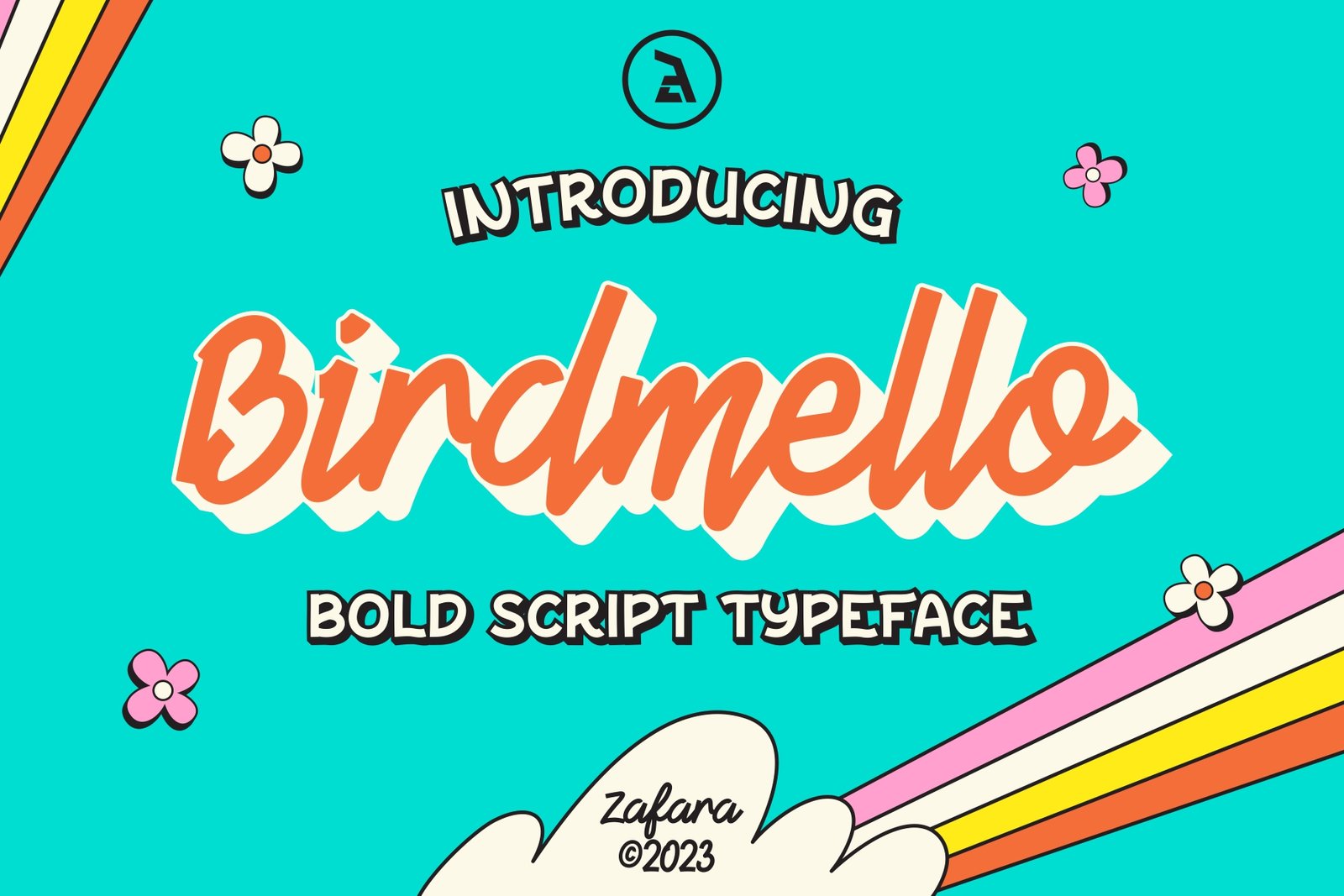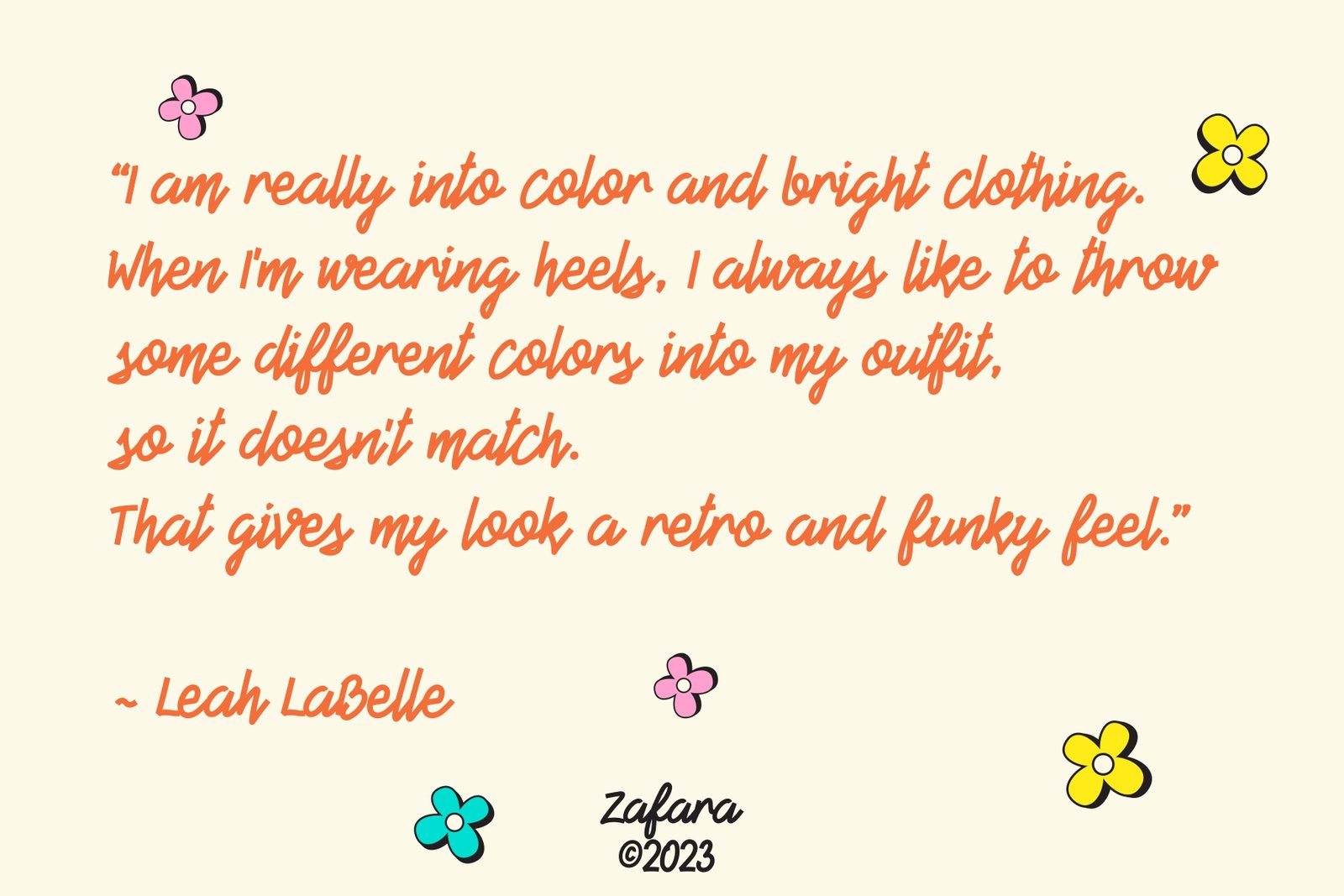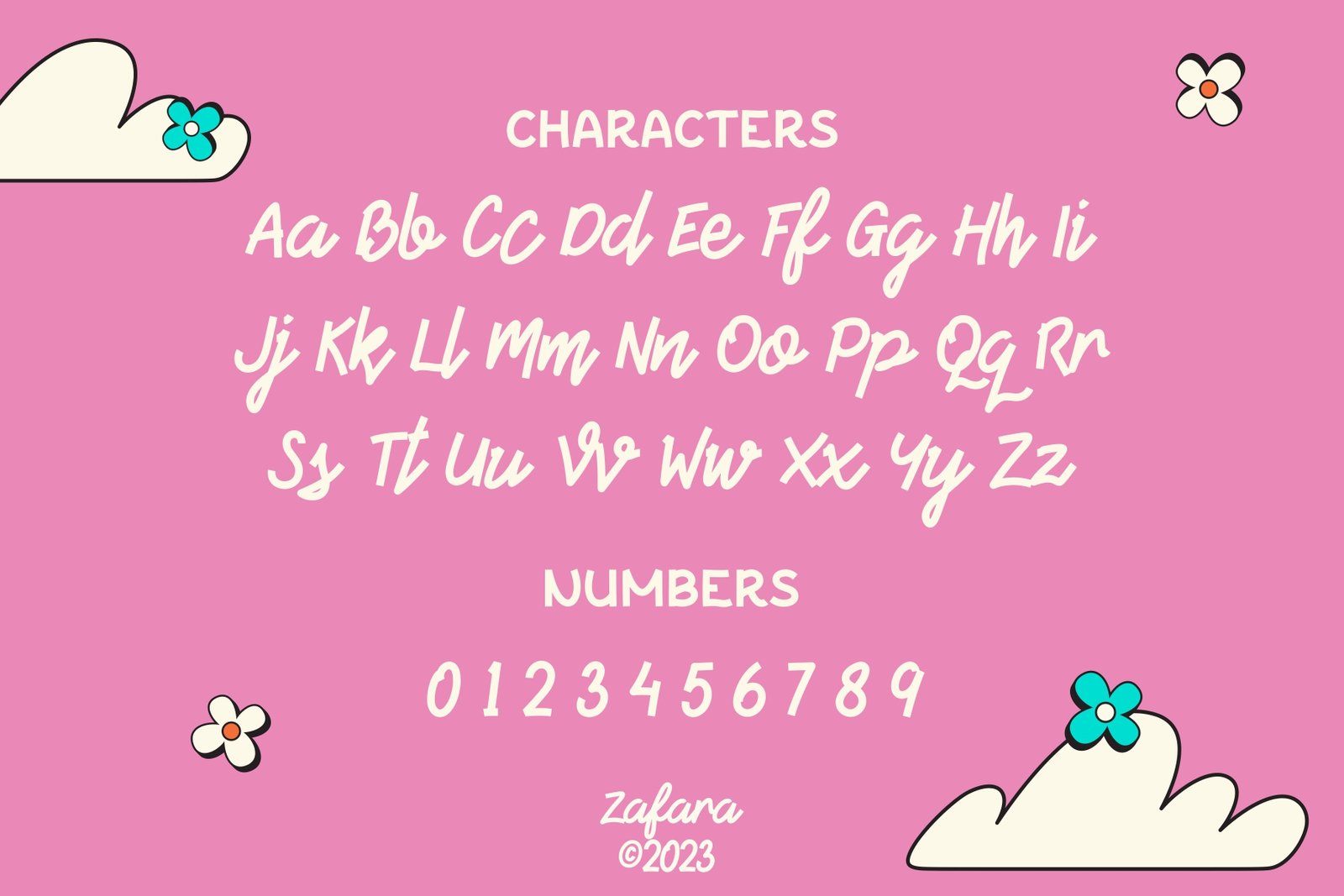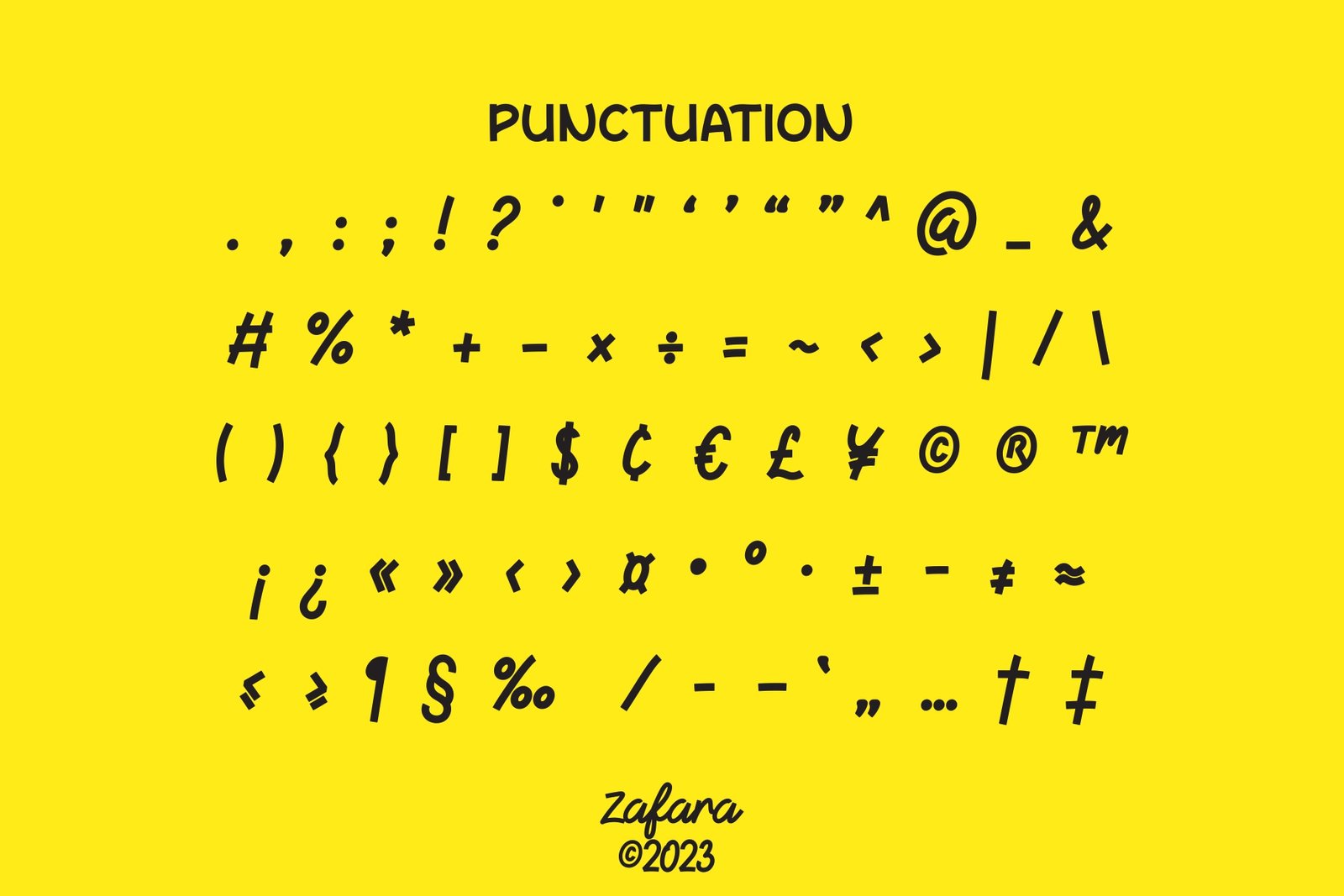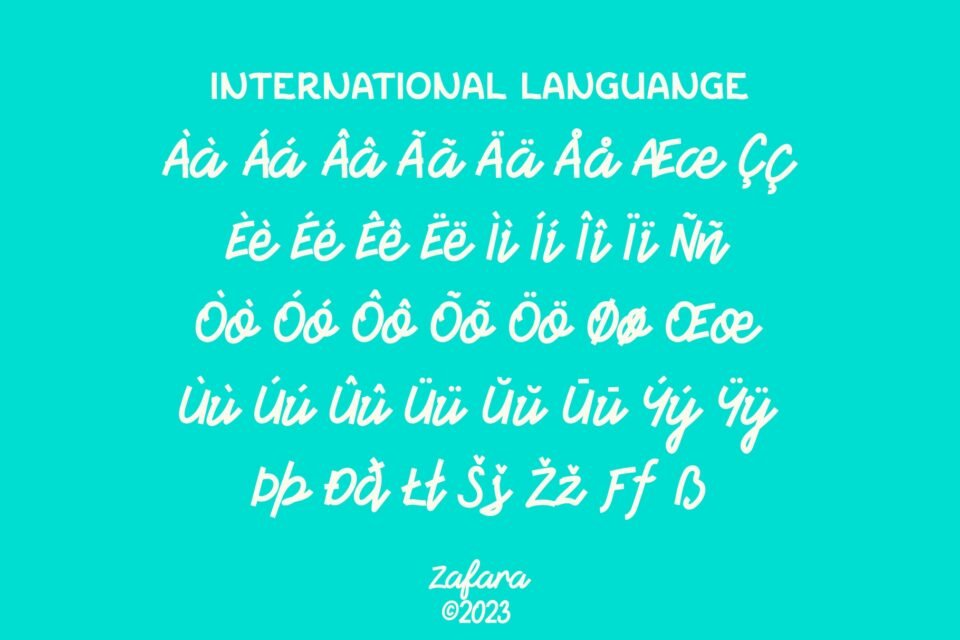
A bold script typeface called Birdmello, with a retro and playful style, shown on a turquoise background with colorful stripes.
A quote by Leah LaBelle in the Birdmello font, showcasing its legibility and retro style on a cream background with scattered flower illustrations.
All uppercase and lowercase characters of the Birdmello font, along with numbers 0-9, displayed on a pink background.
A comprehensive collection of punctuation, symbols, and special characters available with the Birdmello font, shown on a bright yellow background.
A preview of the Birdmello font's international character support, showing accented letters and unique glyphs on a blue-green background.
A large block of placeholder text (lorem ipsum) set in the Birdmello font on a light cream background, demonstrating the font's flow in a paragraph.
Birdmello
Birdmello is a bold script font that stands out with its energetic and playful look. This handwritten typeface is highly versatile, making it an excellent choice for a variety of creative projects. It’s particularly perfect for eye-catching designs such as greeting cards, striking logotypes, complete branding packages, and impactful posters. Whether you’re aiming for a retro vibe or a modern, fun aesthetic, Birdmello adapts to a wide range of themes, depending on your specific design needs.
• 211 Glyphs: Uppercase, Lowercase, Numbers, Punctuation & Language Support
• Language Support: Danish, English, French, German, Irish, Italian, Portuguese, Spanish, Swedish, & Swiss German
Birdmello – Bold Script Typeface
Birdmello is a bold script font with a playful, energetic look, perfect for greeting cards, logotypes, branding, posters, and much more.